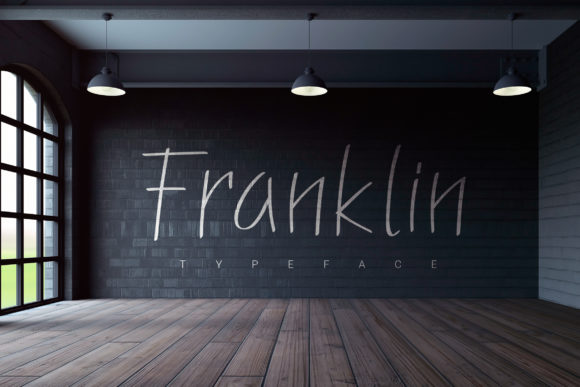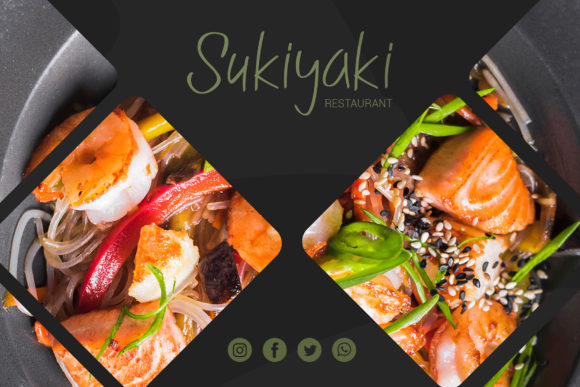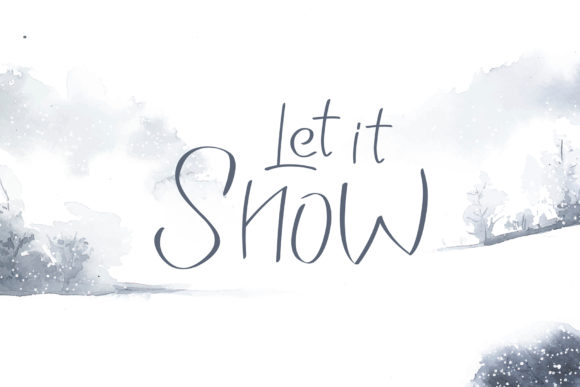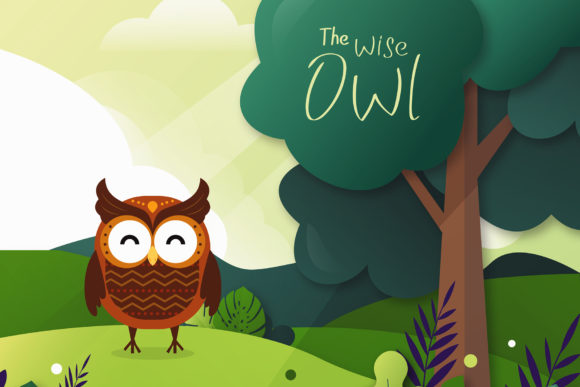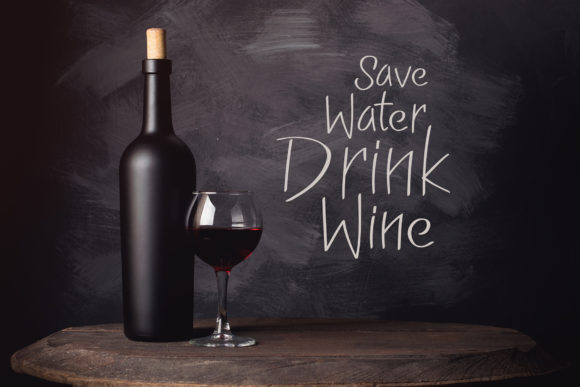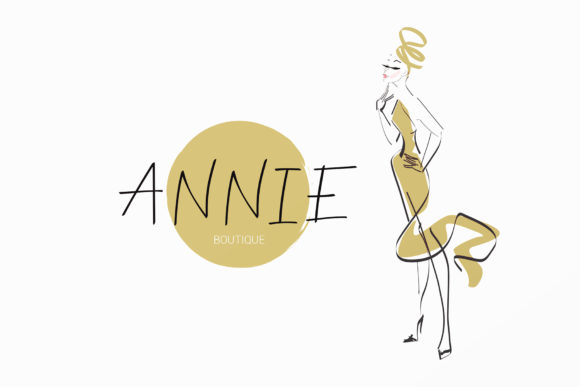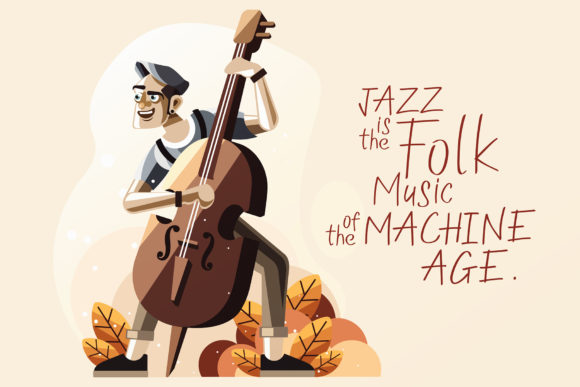
HomeScript FontsFranklin Family Font Script Fonts Franklin Family Font FacebookXPinterestWhatsApp Franklin Family Font Poster 2 Franklin Family Font Poster 3 Franklin Family Font Poster 4 Franklin Family Font Poster 5 Franklin Family Font Poster 6 Franklin Family Font Poster 7 About Franklin Family Font Franklin is a truly modern script font family that will take any design project to the next level. DOWNLOAD ON CREATIVE FABRICAThis font is sold and delivered by Creative Fabrica. Font Canyon may earn a commission if you buy through this link. People also explored Farm House Font Ohanlon Script Font Darling Font Cute Font Sunny Summer Font Candy Kids Font Cactus Homesick Font Abbie Font 334 0 TagsFranklin Family Font Previous articleInspiration FontNext articleValdemar Font LEAVE A REPLY Cancel reply Comment: Please enter your comment! Name:* Please enter your name here Email:* You have entered an incorrect email address! Please enter your email address here Website: Save my name, email, and website in this browser for the next time I comment. Personal Use Free Rionaldo Angelo Personal Use Free Read more about this font My Ugly Handwritting Personal Use Free Read more about this font Squealer Personal Use Free Read more about this font Starborn Font Personal Use Free Read more about this font BLOG The 10 Best Handwriting Fonts to Add Personality to Your Designs 10 of the Best Handwriting Fonts for Adding Personality to Your Designs There will undoubtedly be no other better choice than handwriting fonts to give... Transform Your Website: Elevate Your Typography with 7 Best Web Font Generators Exploring Font Trends Free vs Paid Fonts: Why Investing in Premium Fonts Is Worth It